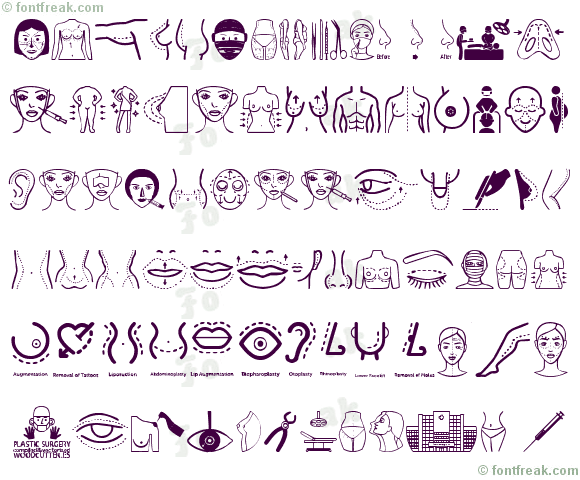
Plastic Surgery
About Plastic Surgery
Plastic Surgery, designed by woodcutter Manero, is a unique decorative typeface that captures the essence of contemporary aesthetics with a playful twist. This font stands out with its striking visual characteristics, featuring clean lines and a whimsical style that evokes themes of transformation and enhancement. The stroke weight is consistent, and the design incorporates a light contrast that adds to its modern appeal. The spacing is thoughtfully arranged, allowing for easy readability while maintaining an engaging visual rhythm.
This font is particularly versatile, making it ideal for various creative projects. It shines in contexts such as beauty and wellness branding, where it can be used for promotional materials and social media graphics. Its quirky design also makes it a great choice for artistic wedding invitations that seek to break the mold and add a touch of humor. Moreover, Plastic Surgery can enhance movie posters, especially for films that delve into themes of self-image or transformation. Restaurant menus that focus on innovative cuisine can also benefit from this font, as it adds a distinctive flair that aligns with modern dining experiences.
Target audiences for this font include graphic designers looking for a fresh typeface to elevate their projects, small business owners in the beauty and health industries seeking to create memorable branding, and content creators wanting to infuse their visuals with a sense of fun.
In a crowded font marketplace, the Plastic Surgery font free download stands out for its playful yet sophisticated design, making it an excellent choice for those who want to make a memorable impact. Its unique style invites creativity and encourages users to think outside the box, making it a valuable addition to any designer's toolkit.